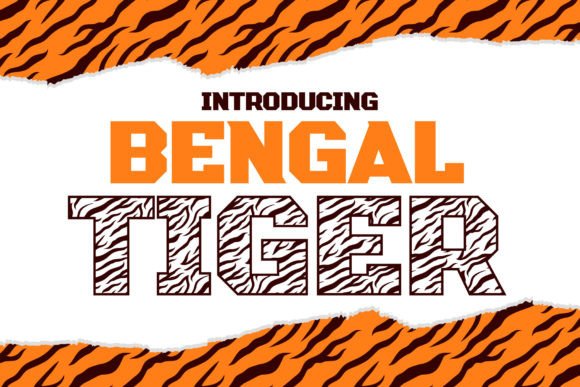
Unleash Your Creativity with Bengal Tiger: The Decorative Font for Captivating Creations
In a world demanding unique expressions, Bengal Tiger emerges as a stunning decorative font, ready to transform your projects into visual masterpieces. With its bold outline and captivating character designs, this font is not just a tool; it's an art form. Whether you're crafting publications, designing logos, creating business cards, or unleashing your creativity on T-shirts, Bengal Tiger promises to make your designs shine.
Picture the impact of your prayer cards adorned with Bengal Tiger's exquisite charm, leaving an unforgettable mark on the hearts of your audience. Its intricate details and striking presence will add a touch of elegance and reverence to your sacred messages. Beyond prayer cards, Bengal Tiger's versatility knows no bounds. It effortlessly elevates logos, transforming them into symbols of distinction and power.
Immerse yourself in the world of business cards, where Bengal Tiger's bold strokes and eye-catching curves command attention. Create business cards that leave a lasting impression, exuding professionalism and creativity. Unleash your imagination and explore the endless possibilities of t-shirt designs with Bengal Tiger as your creative ally. Its strong outline and dynamic characters will make your T-shirts stand out from the crowd, turning them into wearable works of art.
Bengal Tiger is more than just a font; it's an investment in your creative journey. Its ability to elevate any creation makes it an invaluable asset to your font library. With Bengal Tiger at your fingertips, you gain the power to transform ordinary designs into extraordinary expressions of your artistry. Don't let mediocrity hold you back; embrace the boldness of Bengal Tiger and unlock the true potential of your creative vision.